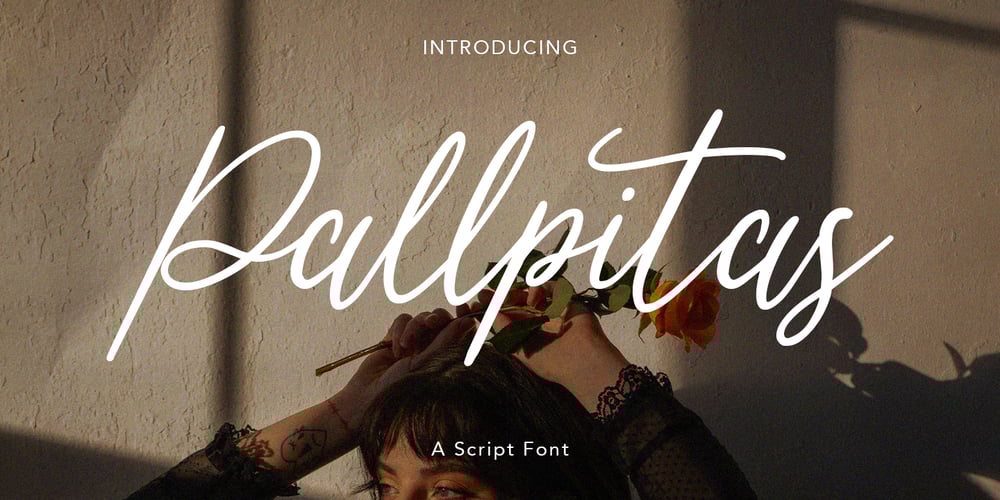
Pallpitas
Pallpitas font
Pallpitas Font Family was designed by Gilang Maulana and published by Maulana Creative. Pallpitas contains 1 styles and family package options. Pallpitas is a fancy script font With clean stroke, super slanted and fun character. It has Opentype features of ligatures and some alternate lowercase character, To give you an extra creative work. Pallpitas script script font support multilingual more than 100+ language. This font is good for logo design, Social media, Movie Titles, Books Titles, a short text even a long text letter and good for your secondary text font with sans or serif. Make a stunning work with Pallpitas font. Cheers, MaulanaCreative